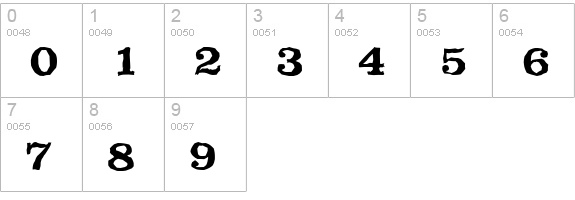
ClareAntique Bold Font Details
ClareAntique Bold is a strong, high-contrast variant in the ClareAntique typeface family \xE2\x80\x94 well suited to headlines, attention-grabbing titles, and strong calls-to-action.
Introducing ClareAntique Bold, a timeless and elegant font that exudes sophistication and charm. With its classic serifs and strong presence, ClareAntique Bold is perfect for adding a touch of luxury to any design project. Whether you're creating invitations, logos, or branding materials, this font will make a statement and capture attention. What's even better is that ClareAntique Bold is available for free download at FontsMarket.com. Yes, you read that right – you can elevate your designs with this exquisite font without spending a penny. Don't miss out on the opportunity to enhance your creative projects with ClareAntique Bold. Download it now and let your creativity shine!